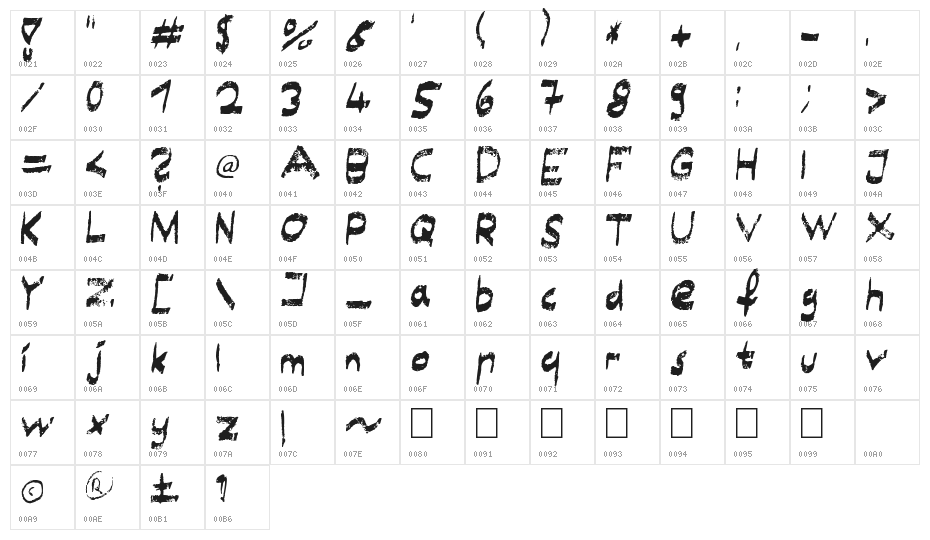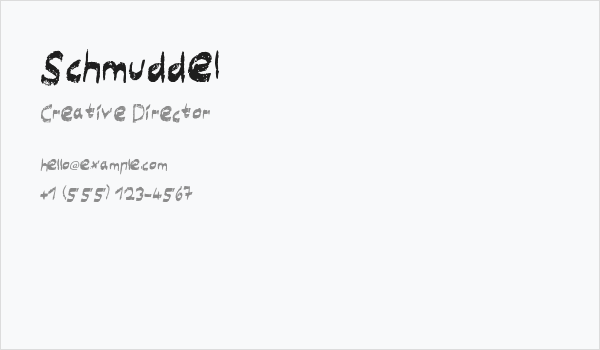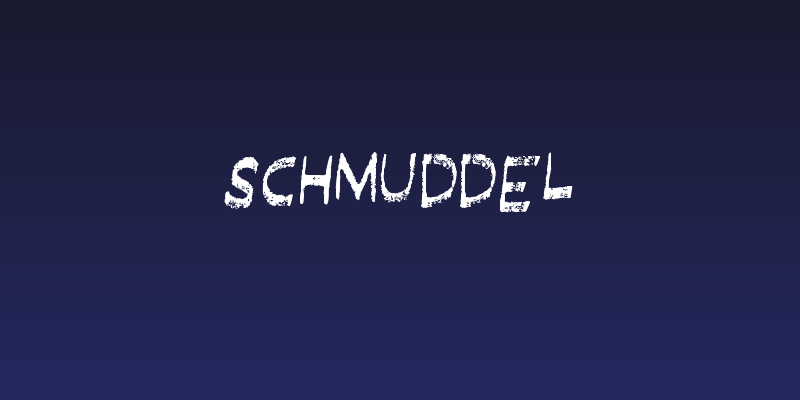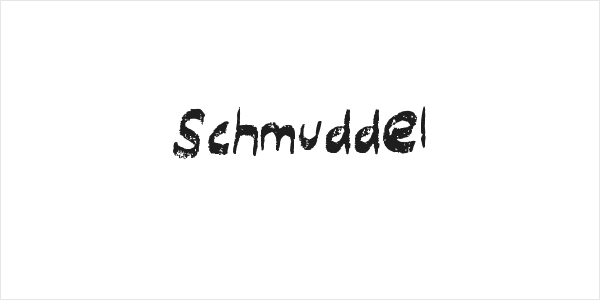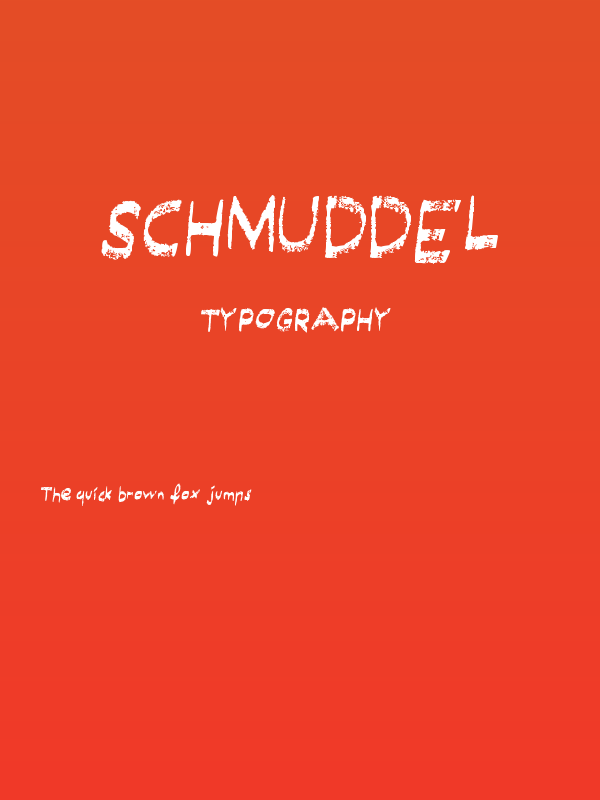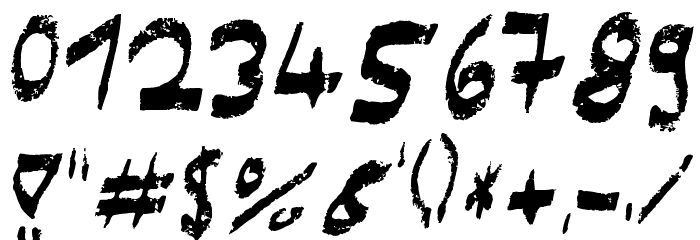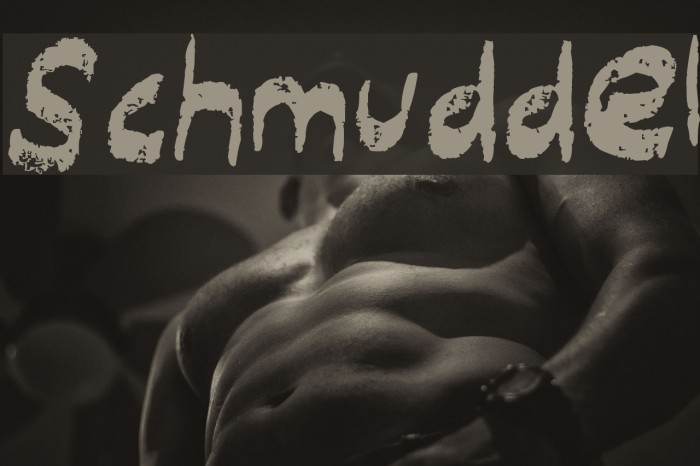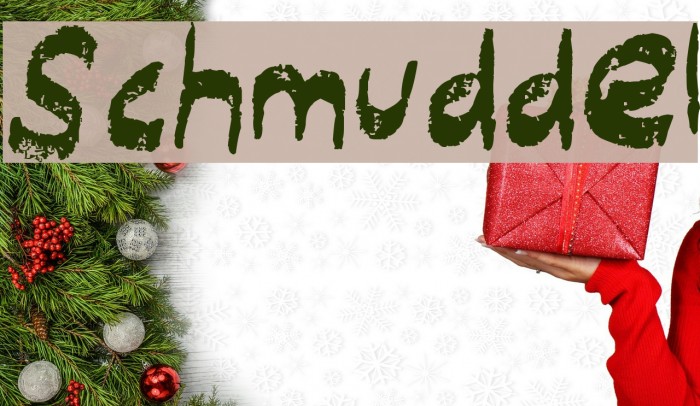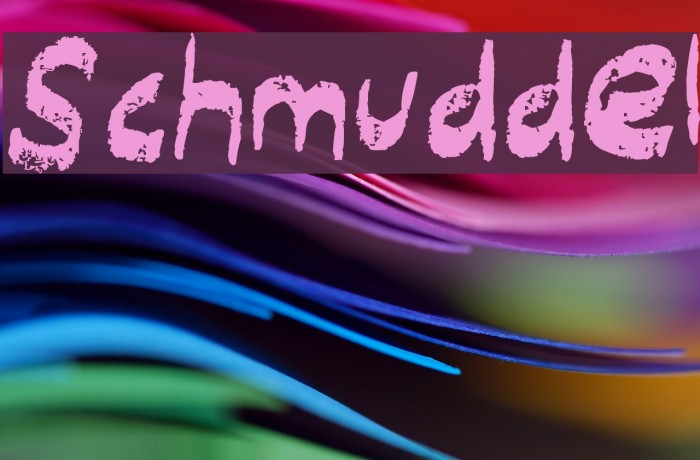
Schmuddel Font
Schmuddel Description
This font features a distressed, grunge aesthetic with a rough, textured appearance. The characters are irregular and have a hand-drawn quality, giving them a unique and edgy feel. The uppercase and lowercase letters are bold and expressive, with varying stroke widths that add to the chaotic and artistic style. Numbers and special characters maintain the same distressed look, making the font cohesive across all elements. This font is ideal for projects that require a bold statement or an artistic touch, such as album covers, posters, or creative branding.
| Proposed Projects | Album covers, posters, creative branding, artistic projects. |